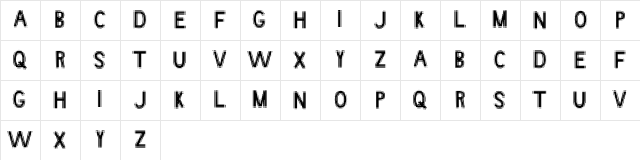
Angstrom Regular Free Font
Angstrom Regular
Foundry: [Divide By Zero] Fonts
Designer: Tom Murphy 7
Design Context for Angstrom
Angstrom is a composed and adaptable typeface that performs quietly and consistently across a wide range of design contexts.